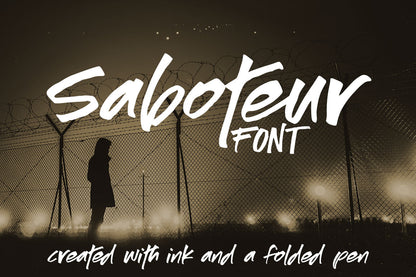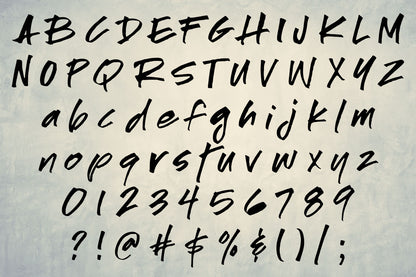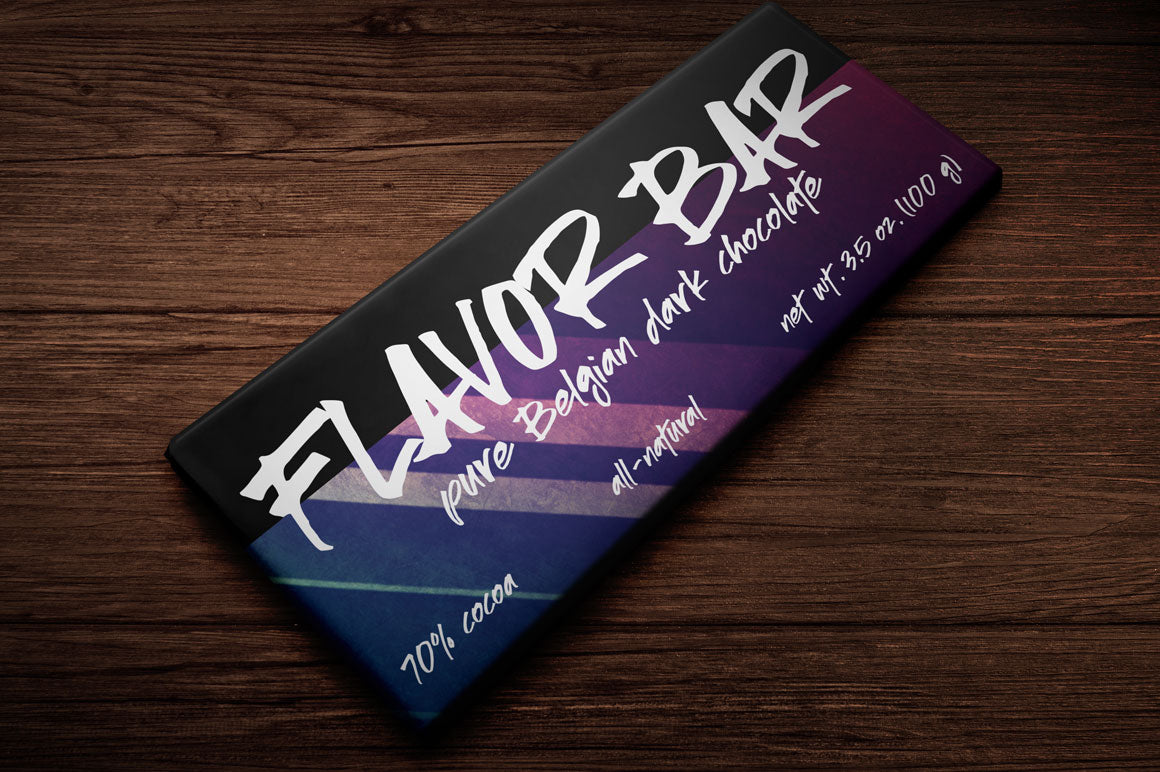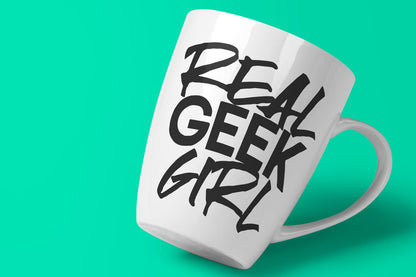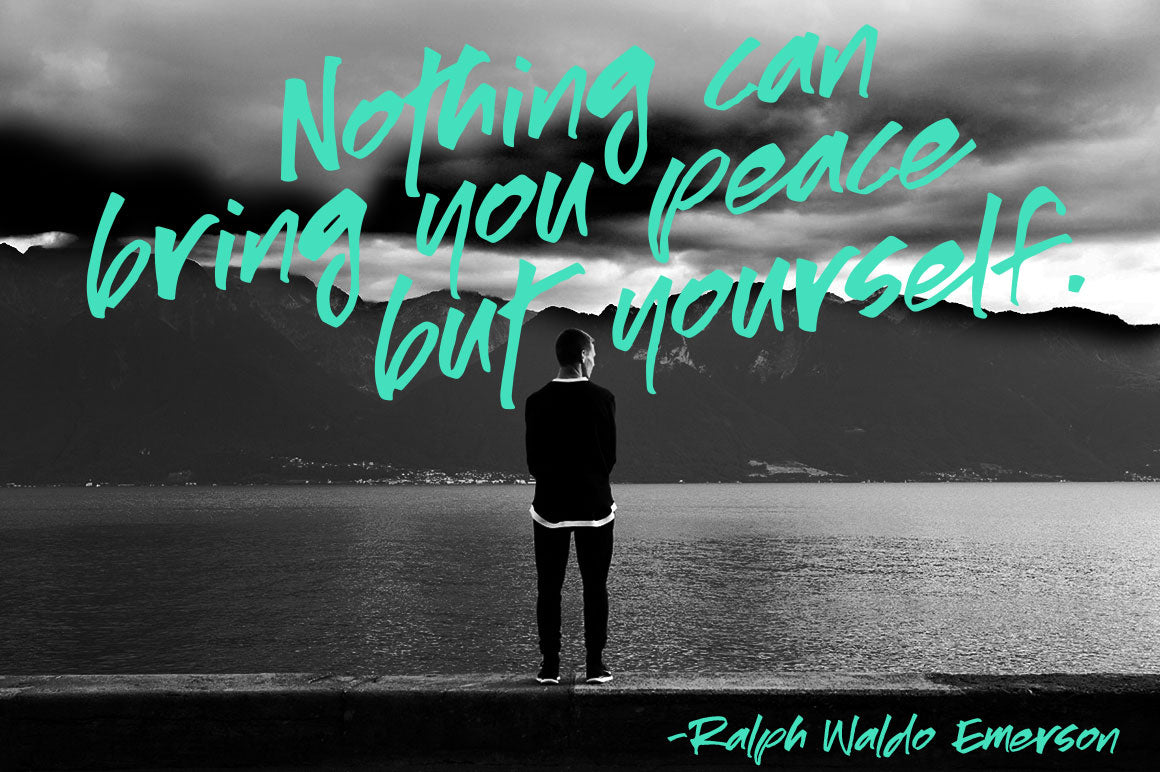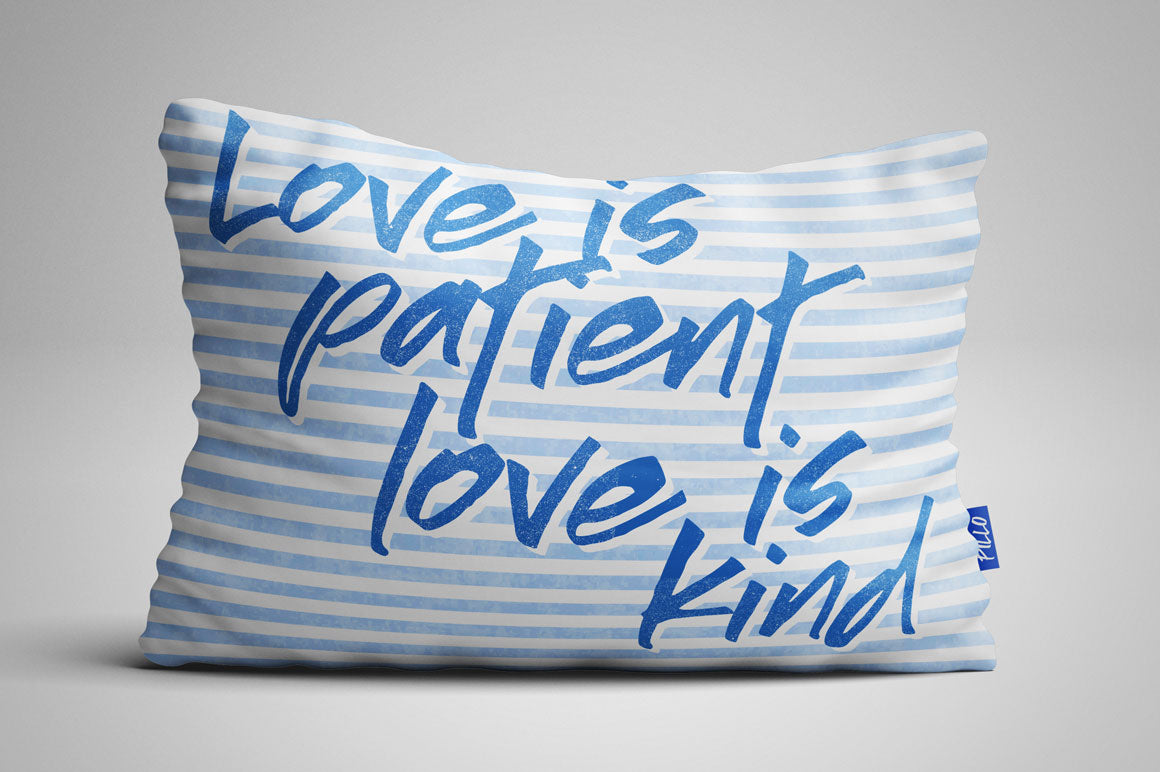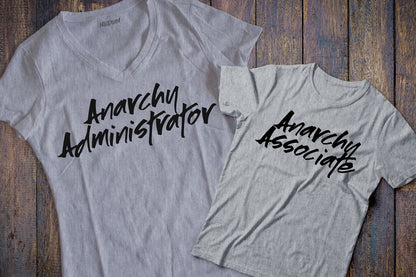
Look out, it's Saboteur! I went old-school with this font, creating the letters with ink and paper. I used a folded pen, which is one of my favorite lettering tools.
Despite being a true ink-brush font, Saboteur is still relatively smooth and sharp! The letters are all solid -- no internal areas to weed out. And the edges have been smoothed and refined just enough to make the letters easy to cut out and clean when printed at any size, while still retaining some of their original rough character. (I've done a test cut on a Silhouette Cameo at one inch tall, and it both cut and weeded beautifully.)
As with all of my fonts, this one comes with plenty of punctuation and over 200 extended Latin characters for language support.